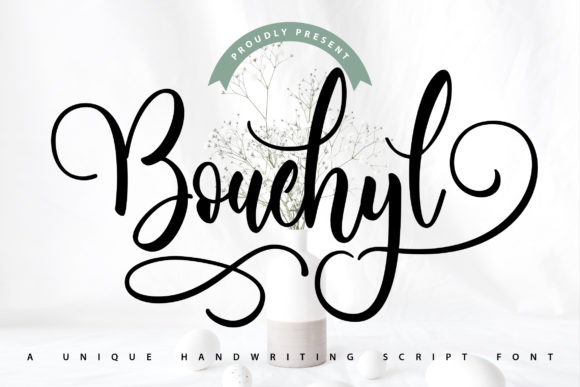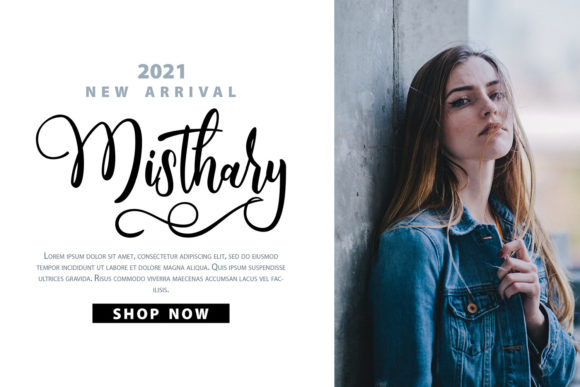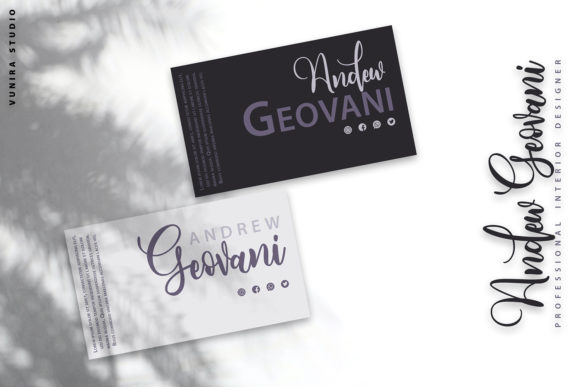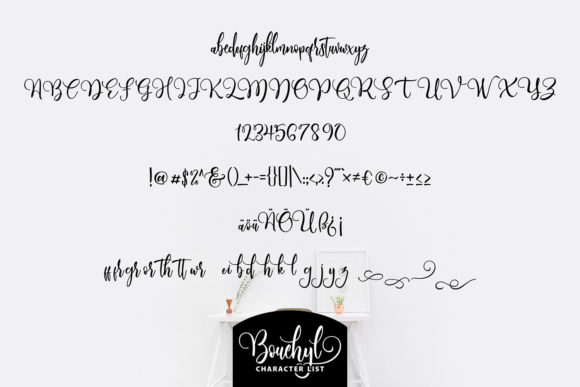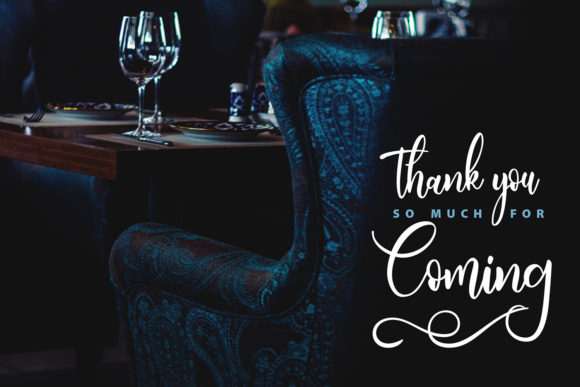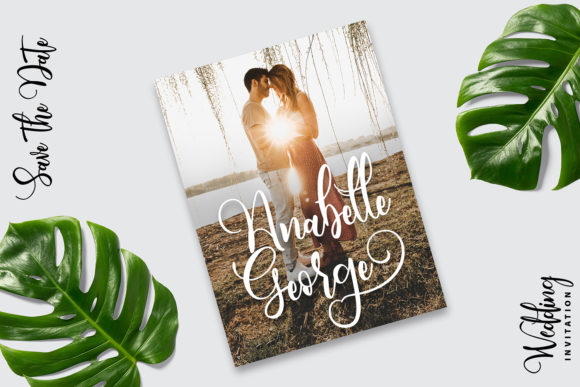
Bouchyl | Unique Handwriting Script Font Font
About Bouchyl | Unique Handwriting Script Font
**Bouchyl | Unique Handwriting Script Font** with a calligraphy style, So beautiful on invitations like greeting cards, branding materials, business cards, quotes, posters, and more!